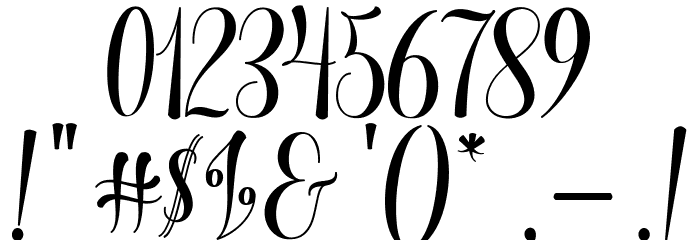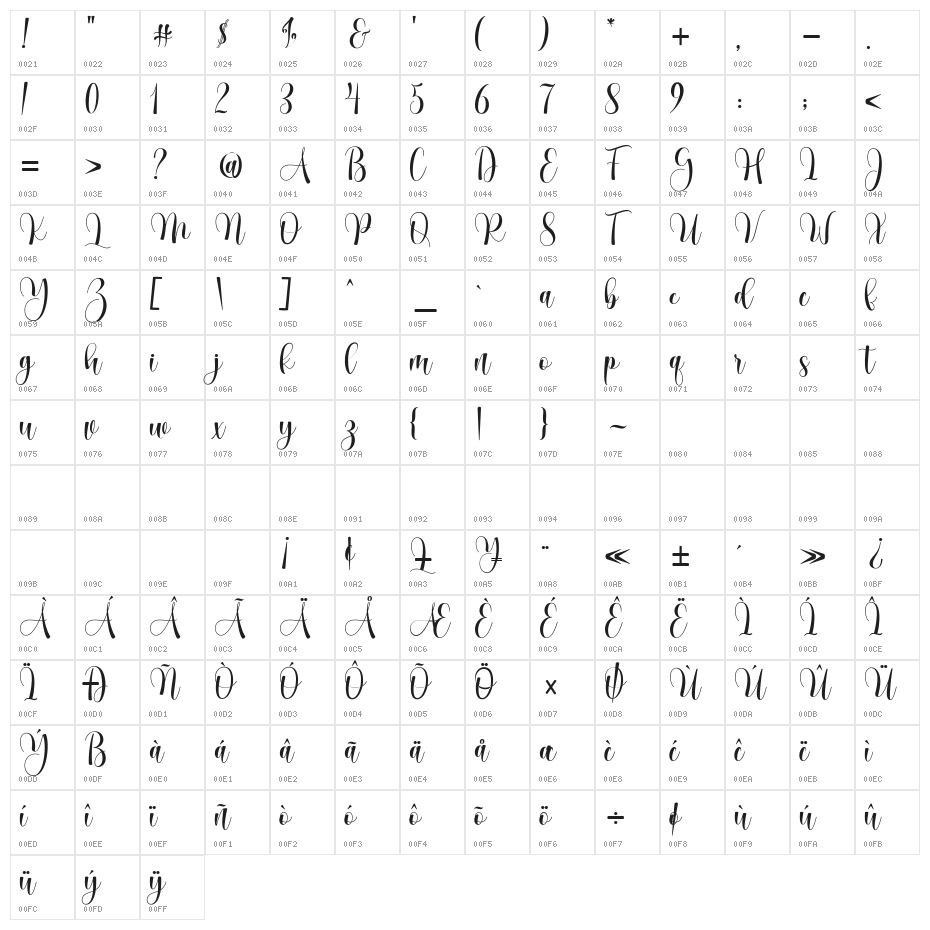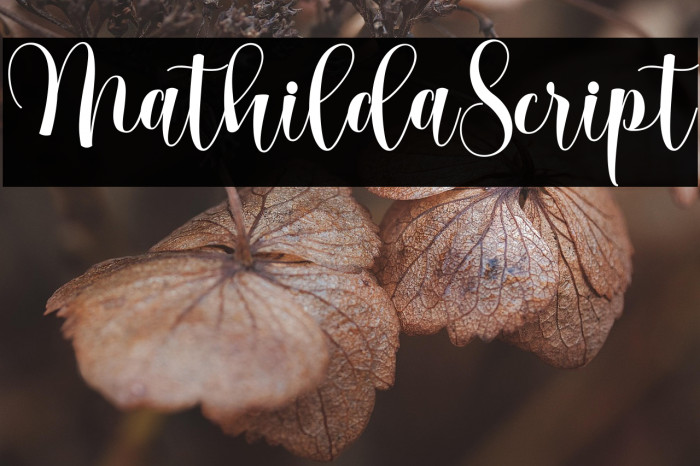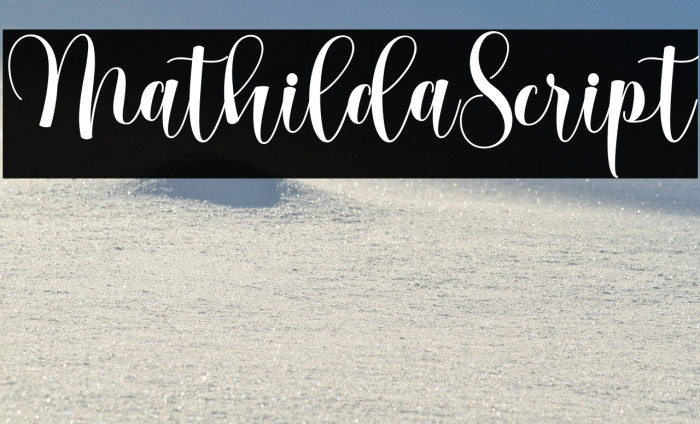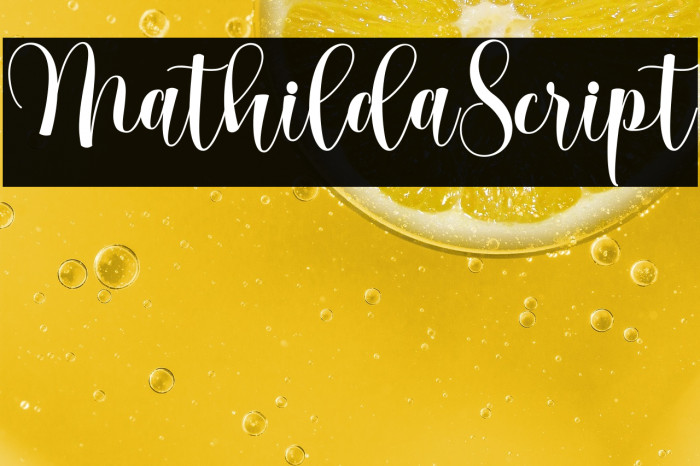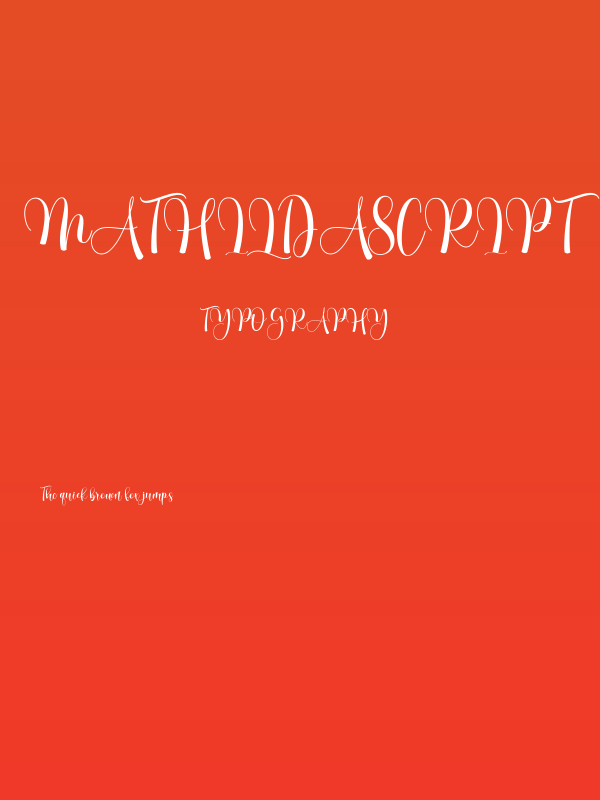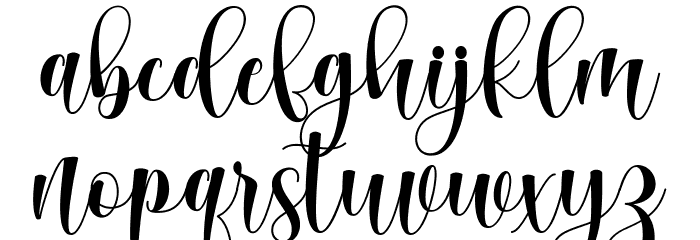
MathildaScript Font
MathildaScript Description
This font features an elegant and flowing script style, characterized by its smooth, cursive lines and intricate loops. The uppercase letters are particularly ornate, with sweeping curves and decorative flourishes that give a sense of movement and grace. The lowercase letters maintain a consistent style, with a slightly more restrained design that complements the uppercase characters. The numerals are distinct and easy to read, while still incorporating the font's signature style. Special characters are creatively designed, adding to the font's overall aesthetic appeal. This font is perfect for projects that require a touch of sophistication and elegance.
| Use Case | Logos, Invitations, Decorative Text |
| Proposed Projects | Ideal for wedding invitations, elegant branding, greeting cards, and decorative signage. |